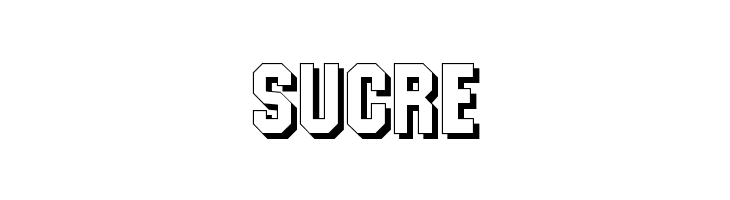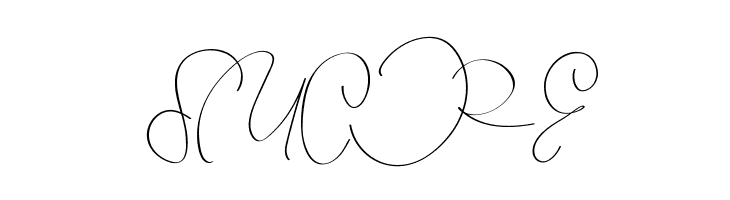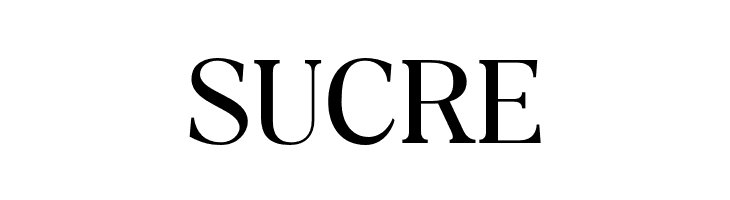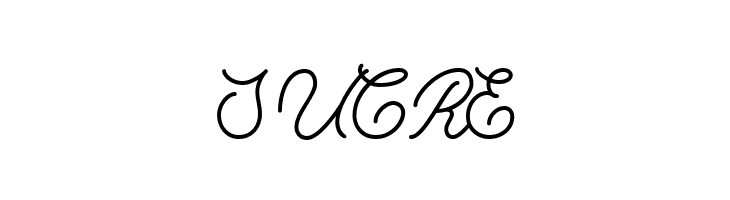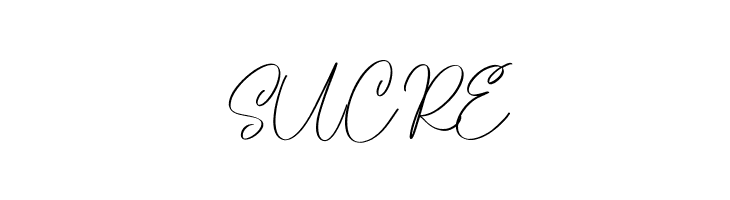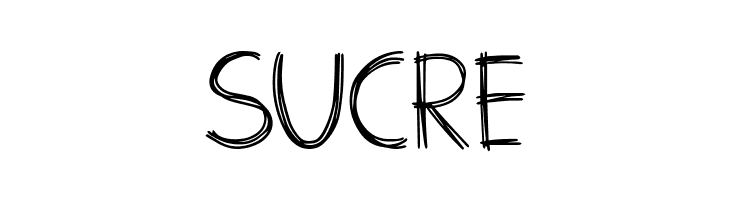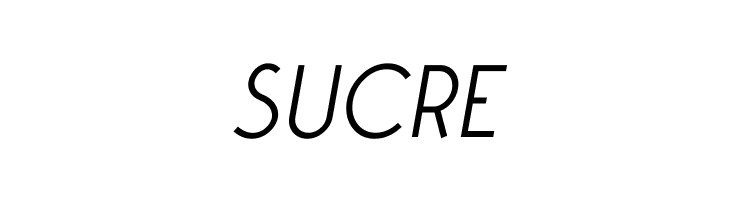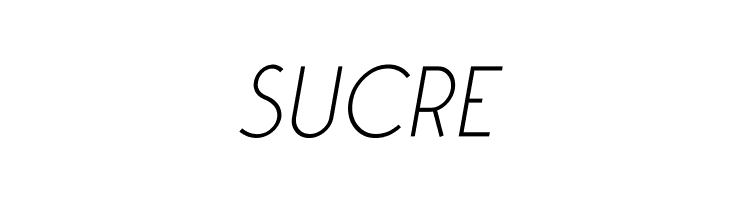
• College TM Shadow
A bold, three-dimensional font with a strong geometric structure and shadow effect.
• CollegeBytes
A bold, textured slab serif font with a vintage collegiate style.
• CollegeDropout
A bold, playful font with a three-dimensional outlined style.
• CollegeMovie
A bold, decorative font with a distressed, collegiate style.
• Collegerion
A bold, angular font with a three-dimensional outline, perfect for dynamic and impactful designs.
• CollegeScribble
A playful, hand-drawn font with a scribbled texture and bold, sketch-like letters.
• CollegeThrash
A bold, distressed font with a rugged, grunge aesthetic.
• Collette
An elegant, flowing script font with a handwritten style.
• Collibryums Free Regular
An elegant, flowing script font with high contrast and cursive letterforms.
• Collina Regular
A classic serif font with elegant strokes and balanced proportions.
• CollingarDEMO
A classic serif font with high contrast and elegant serifs.
• COLLONAR CAP
A bold, modern serif font with sharp angles and smooth curves.
• Colmeak
• Colo Colo Umbro 2006 [MEJIAS]
• colombia
An elegant script font with flowing, interconnected letters and a classic appearance.
• Colombia
• Colombia Bold
A bold, modern sans-serif font with clean lines and balanced spacing.
• Colombia Bold Italic
A sleek, modern italic font with clean lines and a dynamic appearance.
• Colombia Italic
A sleek, modern italic font with clean lines and balanced proportions.
• Colombia Regular
• Colombia-Regular
• Colombina Personal Use
An artistic, hand-drawn font with elongated strokes and a playful yet elegant style.
• ColoniaDecoDEMO-Regular
A sleek, Art Deco-inspired font with tall, narrow characters and geometric shapes.